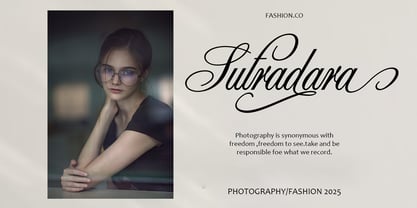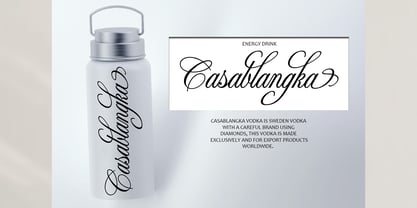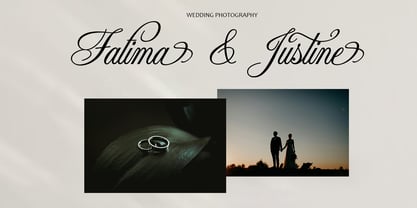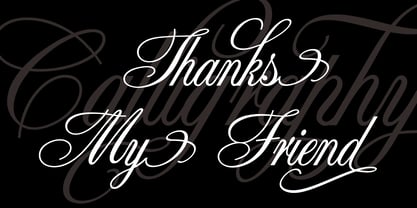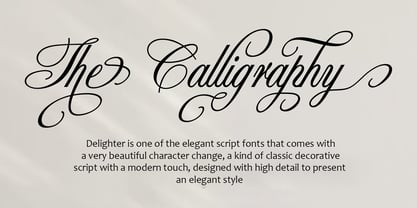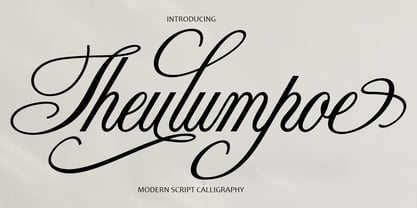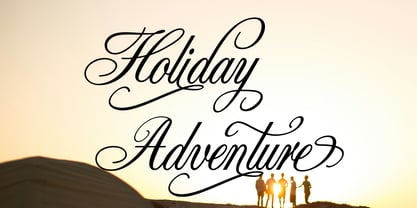
Theulumpoe
von Shape Studio
Die Schriftfamilie Theulumpoe wurde von Teuku Saifullah entworfen und von Shape Studio veröffentlicht. Theulumpoe enthält 1 Stile.
is a new modern calligraphy font with an irregular baseline. Trendy and feminine .looks lovely on wedding invitations, thank you cards, quotes, greeting cards, logos, business cards and more. Perfect for using in ink or watercolour. Including initial and terminal letters, and multiple language
Designer: Teuku Saifullah
Herausgeber: Shape Studio
Foundry: Shape Studio